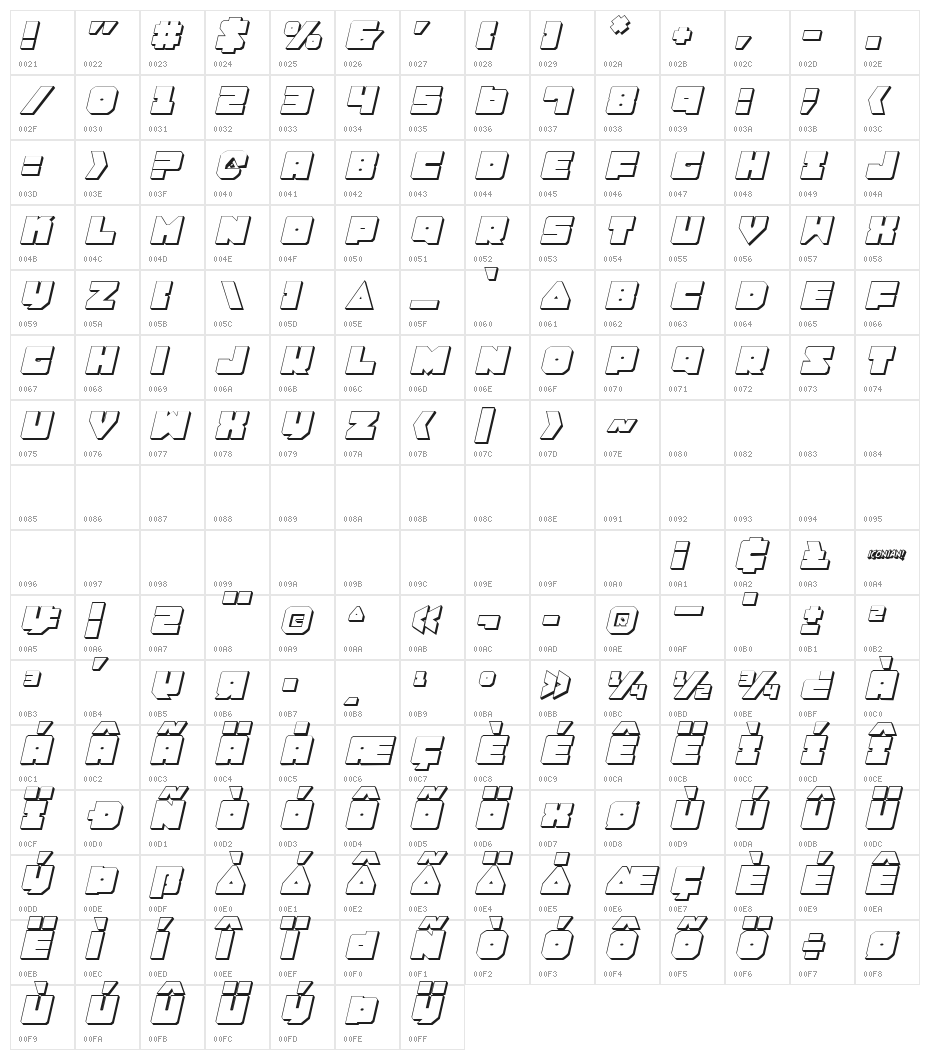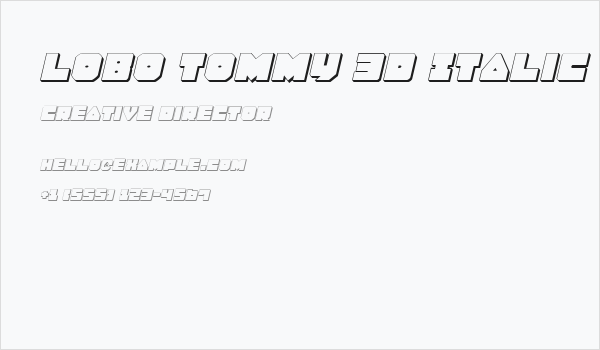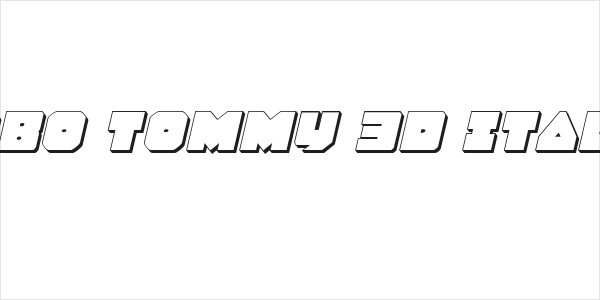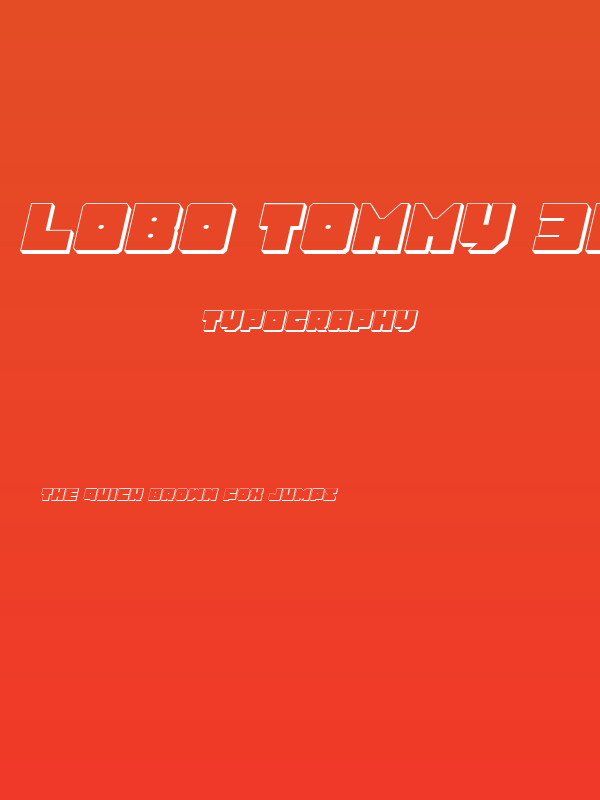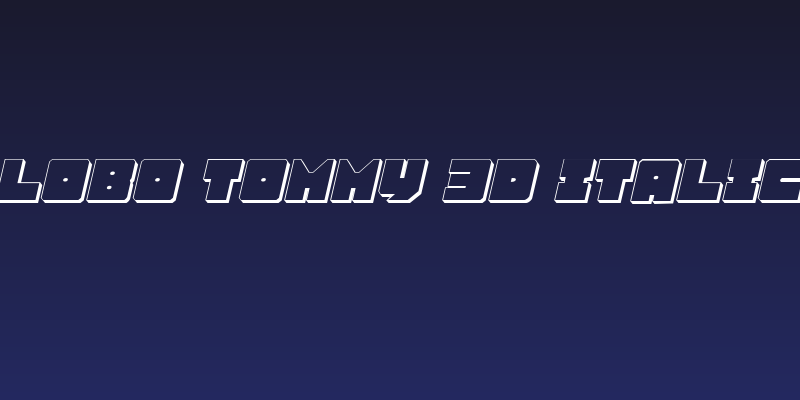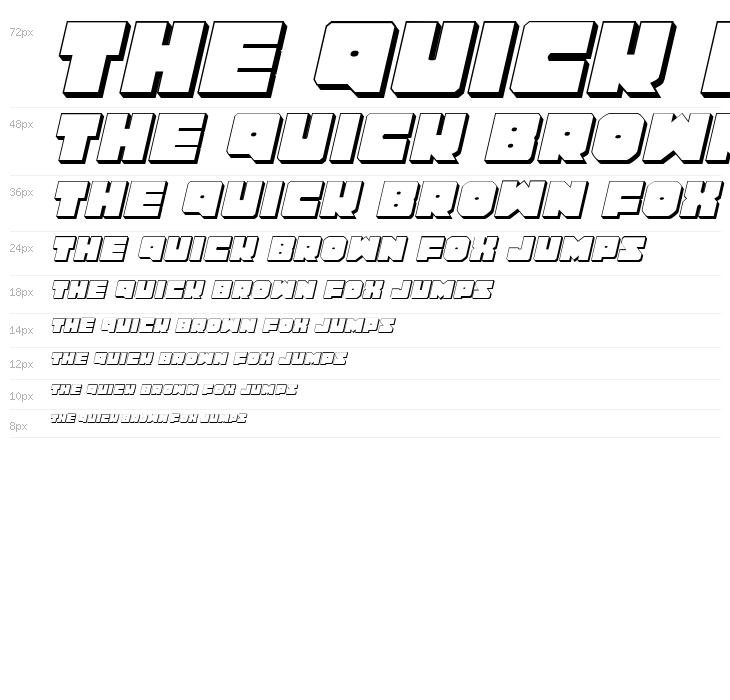
Lobo Tommy 3D Italic Font
Lobo Tommy 3D Italic Description
This font features a bold, three-dimensional design with a strong italic slant, creating a dynamic and impactful appearance. The characters are blocky and geometric, with a distinct shadow effect that enhances the 3D illusion. The uppercase and lowercase letters maintain a consistent style, with sharp angles and clean lines. The numerals and special characters follow the same bold and angular design, ensuring uniformity across all glyphs. This font's unique style makes it stand out, perfect for projects that require a modern and eye-catching typeface.
| Proposed Projects | Ideal for video game titles, posters, logos, and any design needing a bold, modern touch. |